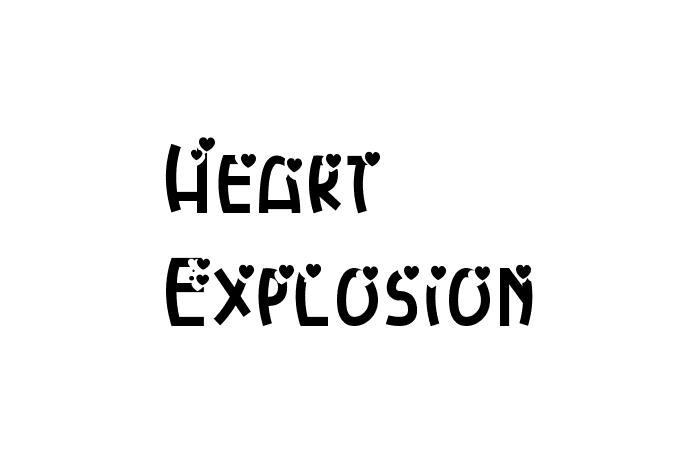
Two of Hearts Font
Download Two of Hearts Font. This font has Amazing Decorative look characters is perfect for in posters, shopping bags, t-shirts, book covers, name card, invitation cards, Valentine card, greeting cards, label, photography, and more.
Font name Two of Hearts Font
Font designer Misti's Fonts
Font Family Two of Hearts
Typeface classification Holiday,Valentine